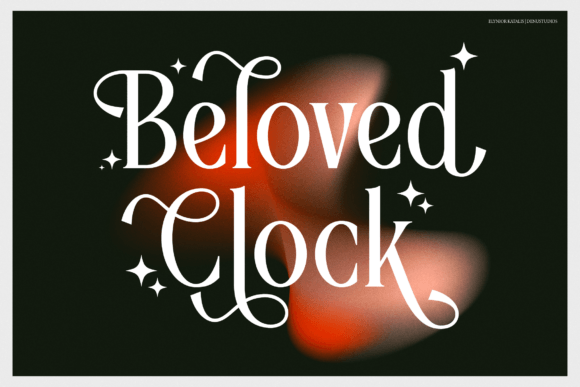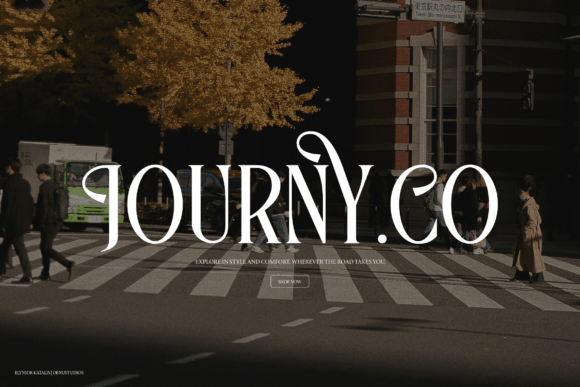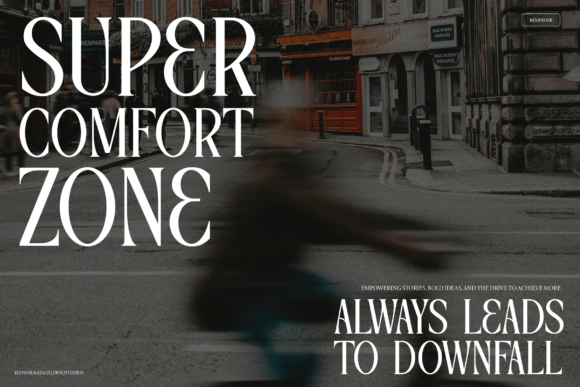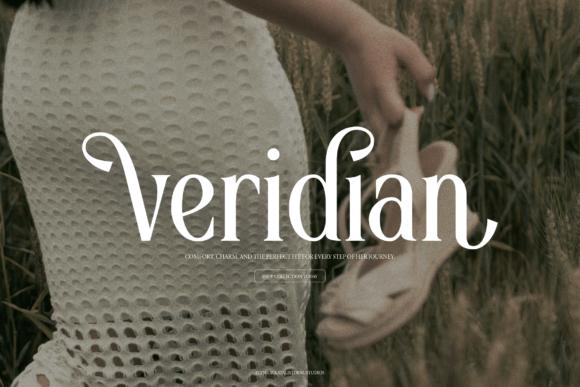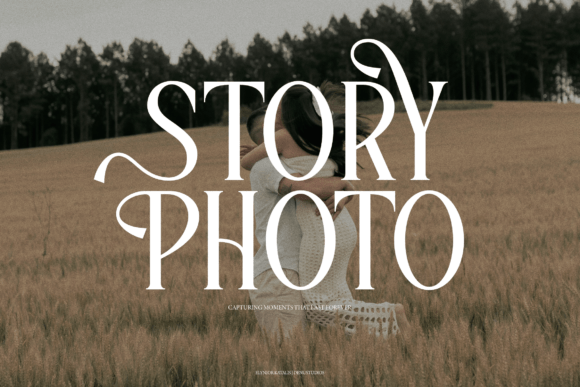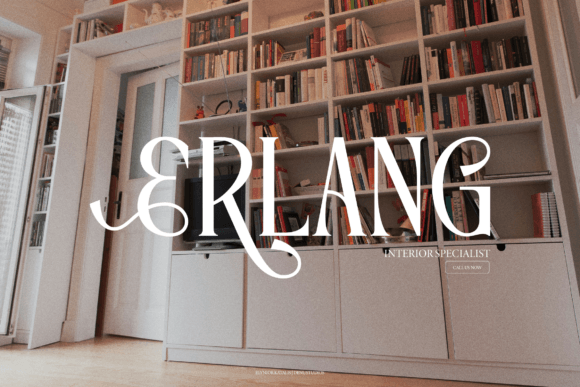
Introduction to Elynior Katalis Font
Have you ever stared at a blank canvas, eager to bring your creative vision to life, only to be held back by the perfect font? The one that adds that extra oomph to your design, making it truly stand out? That’s where Elynior Katalis Font comes in – a beautiful, elegant serif font that’s sure to elevate your creative project to the next level.
As designers, we’re always on the lookout for high-quality design resources that can help us bring our ideas to life. And let’s be honest, a good font can make all the difference. That’s why we’re excited to introduce you to Elynior Katalis Font – a free download that’s perfect for logos, branding projects, and so much more. With its transparent background and crisp, clean design, this font is a game-changer for any creative project.
Key Features of Elynior Katalis Font
- Unique, modern design with a bold and stylish aesthetic
Honest Review: Elynior Katalis Font
As a designer, I’m always on the lookout for high-quality design resources to elevate my creative projects. Recently, I stumbled upon the Elynior Katalis Font, and I must say, it’s a gem.
What works well: ✨ The font is incredibly versatile, with a range of weights and styles that can be used for various design applications. The transparent background makes it easy to overlay on images or other design elements. The high-quality design ensures that the font looks crisp and clear, even at large sizes.
Overall impression: I’m impressed with the Elynior Katalis Font, and I would recommend it to designers looking for a high-quality, free design resource. With its versatility and transparent background, it’s a great addition to any design arsenal.